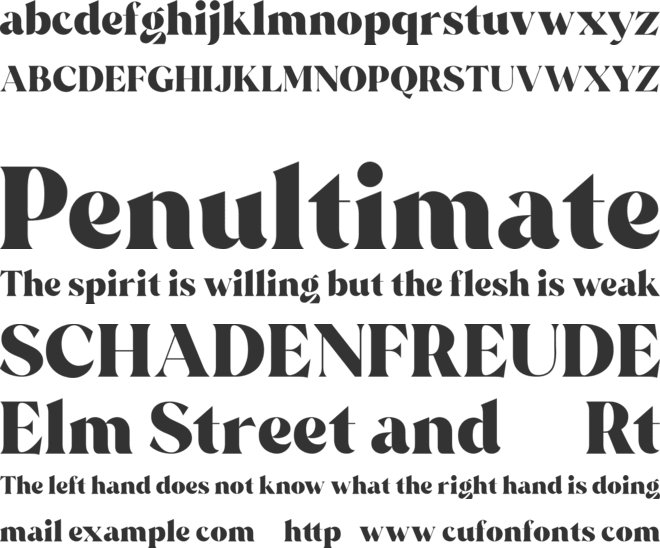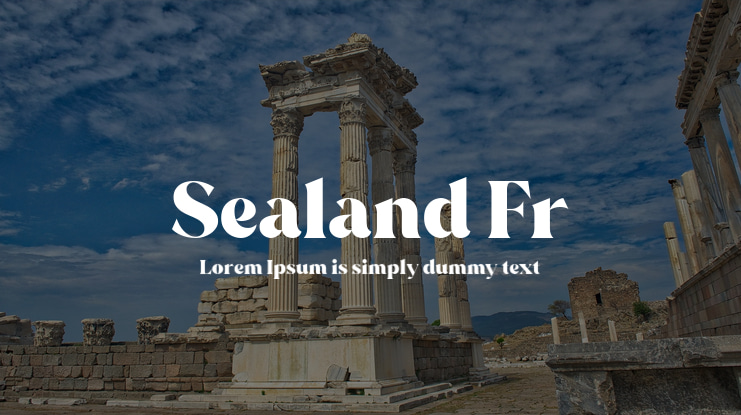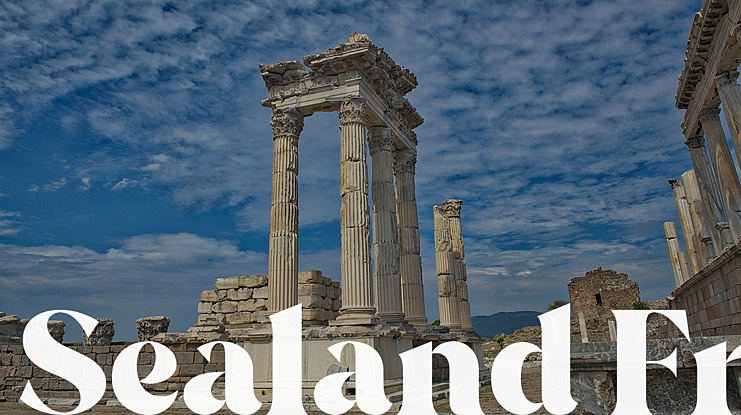
Sealand Fr Font
This is a stylish and elegant bold serif typeface package by NendesKombet Studio. It is suitable for a wide variety of designs due to its unique and cool style. It is inspired by lettering from the good old past, but it still has a strong modern appearance. Its wide range of stylistic alternates allows versatile design options and works perfectly for headlines, logos, posters, packaging, T-shirts, postcards and much more.